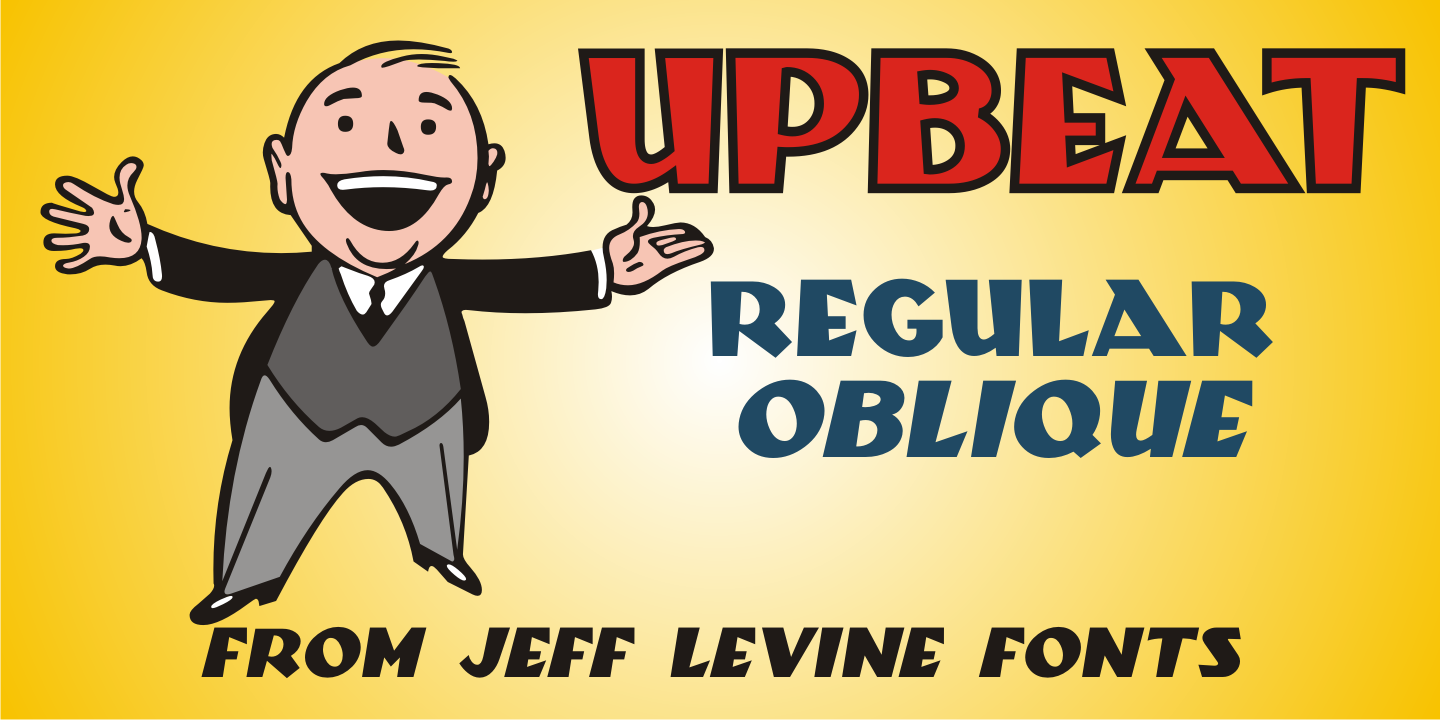
Upbeat Font is perfect for music album covers, party invitations, youth-oriented branding, fitness center promotions, dance studio materials, social media graphics, event flyers, children's book titles, motivational posters, and energetic advertising campaigns.
Upbeat Font is exciting because it radiates positive energy and dynamic movement through its lively character design, inspiring creativity and enthusiasm while delivering messages with infectious optimism that instantly lifts the mood of any design project.
Upbeat Font family includes Regular, Bold, Light, Italic, Condensed, Rounded, Shadow, and Outline variations, offering designers a complete toolkit for creating vibrant and engaging visual communications across diverse applications.
Upbeat Font embodies the spirit of celebration and joy, making it an exceptional choice for brands that want to connect with audiences through positive emotions. This dynamic typeface features playful curves and energetic letterforms that naturally draw attention while maintaining professional readability. The carefully crafted character spacing in Upbeat Font Free Download ensures optimal legibility whether used in headlines, body text, or decorative applications.
Entertainment industry professionals consistently choose Upbeat Font for concert posters, festival branding, and promotional materials because of its ability to convey excitement and anticipation. The font's vibrant personality makes it particularly effective for targeting younger demographics and creating memorable brand experiences that resonate with active, lifestyle-focused consumers.
Upbeat Font excels in digital environments where engagement is crucial. Social media managers and content creators rely on this font to make posts stand out in crowded feeds, while app developers use it for gamification elements and interactive user interfaces. The font's energetic appearance naturally encourages clicks, shares, and user interaction.
The therapeutic design industry has embraced Upbeat Font for wellness centers, yoga studios, and mental health awareness campaigns. Its positive visual impact helps communicate messages of hope, recovery, and personal growth, making it an invaluable tool for organizations focused on improving people's lives and well-being through uplifting design communications.